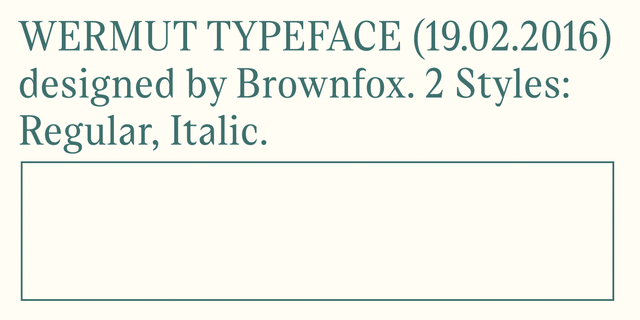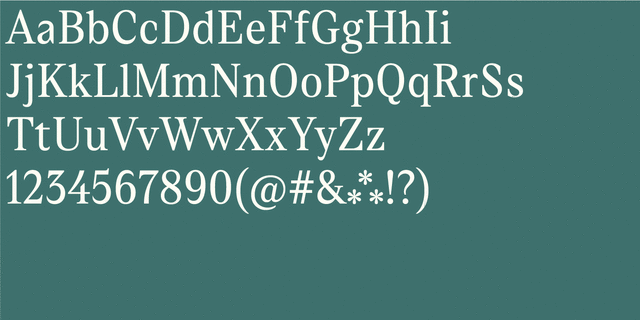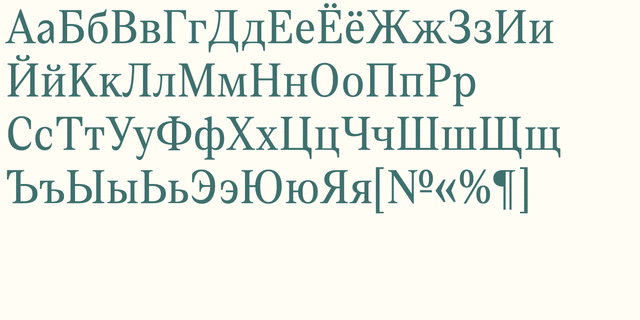
Wermut (2 fonts)
About WermutWermut typeface is an intoxicating blend of rare flavours is what makes the new transitional typeface Wermut (German for vermouth) resemble its alcoholic namesake. Bitter and thorny at first glance, it proceeds to surprise the palate with a complicated taste that leaves a pleasant aftertaste.
Wermut may not be taken in hastily, but needs to be thoughtfully enjoyed at a measured pace. Its dark colour, compressed, spring-like, shapes, well-built proportions, and agreeable letterforms all look safe enough until one is jolted to encounter the clipped serifs that lend the page an unexpectedly edgy appearance. The font comes in two weights with an extended character set in Latin and Cyrillic scripts supporting 66 languages.
A product of slow, careful distillation, this infusion of multiple ingredients comes together to form a unique mature taste which will be appreciated by true connoisseurs of typographic cocktails.
Designed by Gayaneh Bagdasaryan and Vyacheslav Kirilenko in 2016.
Associations for font family WermutTypeface personality and character:
noble, conservative, traditional, classic, artistic, silver, educated, sharp, masterful, accurate, aristocratic, elite, correct, static, comme il faut, humanitarian, esthetic, original, interesting, cutting, expensive, luxurious, polite, orderly, regardful, diligent, tactful, lyrical, dynamic
library, museum, literature, prose, tea, silver, comme il faut, restaurant, wine, luxury, landscape, philosophy, education, poetry Typeface associated with age: